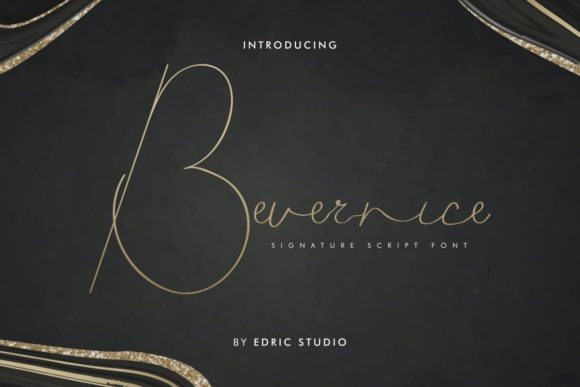
The Elegance of Bevernice Font: A Designer’s Delight
I still remember the time I was working on a fashion branding project, and my client asked me to create a logo that exuded elegance and sophistication. I spent hours scouring the internet for the perfect font, but nothing seemed quite right. That was until I stumbled upon Bevernice Font. This beautiful, thin lettered script font has been a game-changer for my design projects, and I’m excited to share my experience with you.
An Honest Review of Bevernice Font
- 💫 Smooth curves and delicate lines that add a touch of sophistication to any design
- ✅ Perfect for fashion branding, editorial designs, and high-end projects
- 🎨 Highly versatile and can be used for a variety of design applications
- 👀 Unique and elegant aesthetic that sets it apart from other script fonts
While Bevernice Font is an excellent choice for many design projects, there are a few things to keep in mind:
- 🤔 May not be suitable for body text or long-form content due to its delicate nature
- ⚠️ Some characters may not work well at very small font sizes
A Practical Guide to Using Bevernice Font
- Experiment with OpenType features, such as ligatures and stylistic alternates, to add more personality to your design
Bevernice Font was designed with the intention of creating a beautiful, elegant script font that would be perfect for fashion branding and editorial designs. The designer drew inspiration from classic calligraphy and refined typography, with a focus on smooth curves and delicate lines.
Q: What is Bevernice Font best suited for?
A: Bevernice Font is perfect for fashion branding, editorial designs, and high-end projects where elegance and sophistication are key.
Q: Can I use Bevernice Font for body text?
A: While Bevernice Font is a beautiful font, it may not be suitable for body text or long-form content due to its delicate nature.
Q: Does Bevernice Font support OpenType features?
A: Yes, Bevernice Font supports OpenType features, such as ligatures and stylistic alternates, which can add more personality to your design.